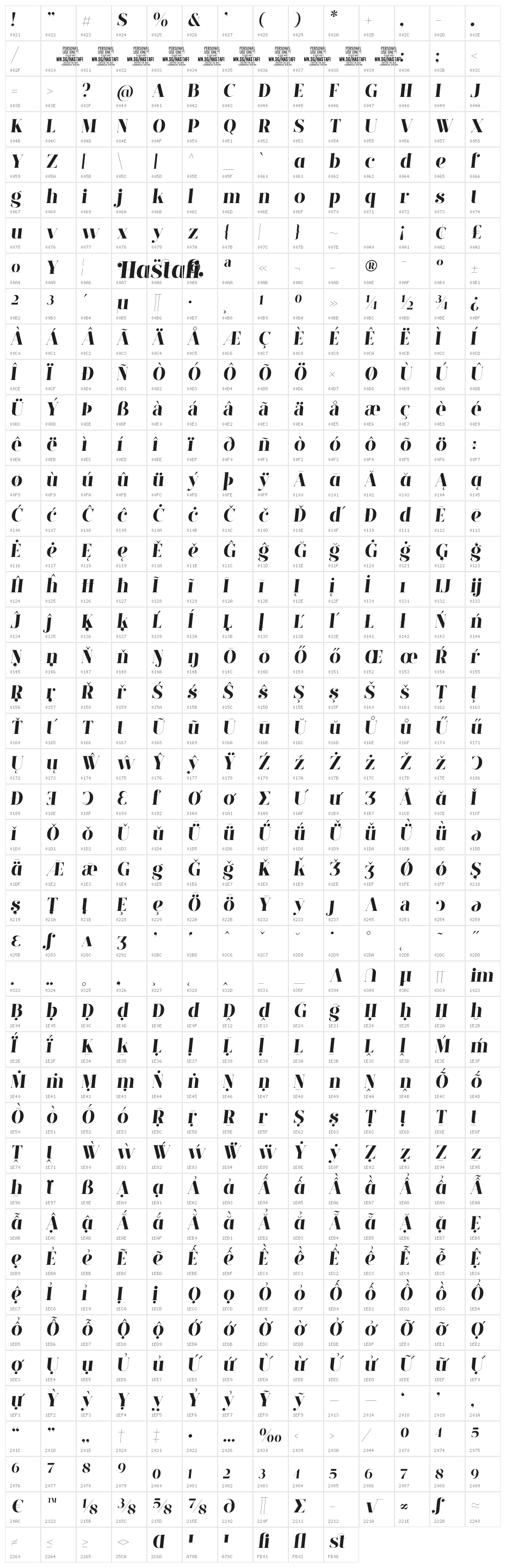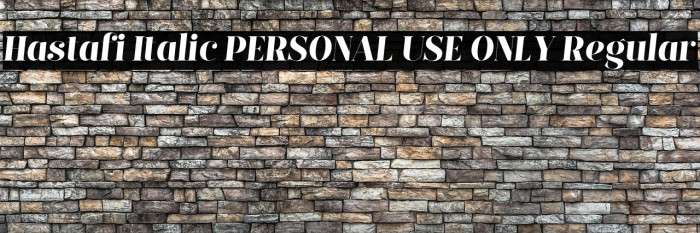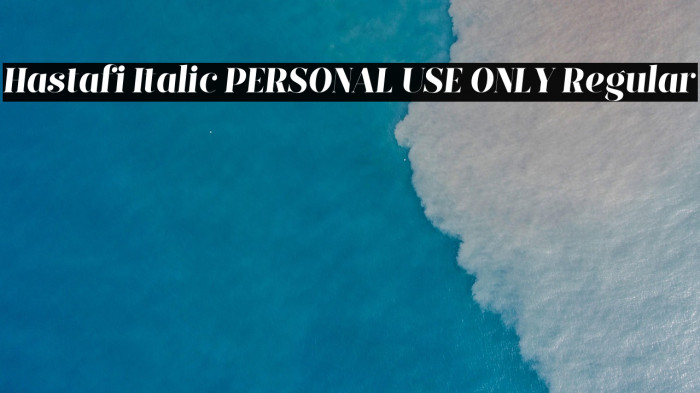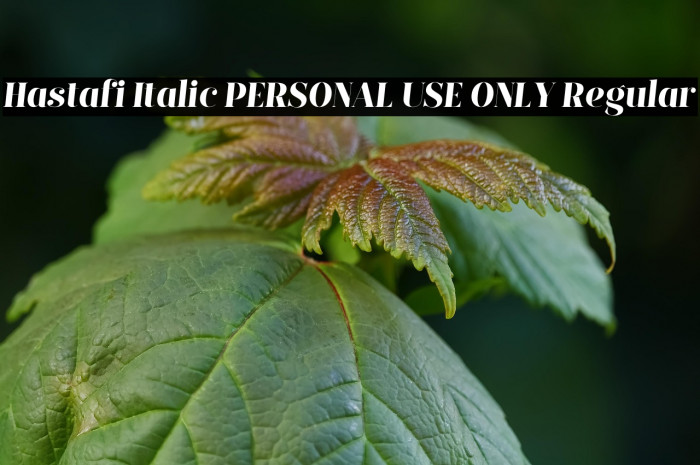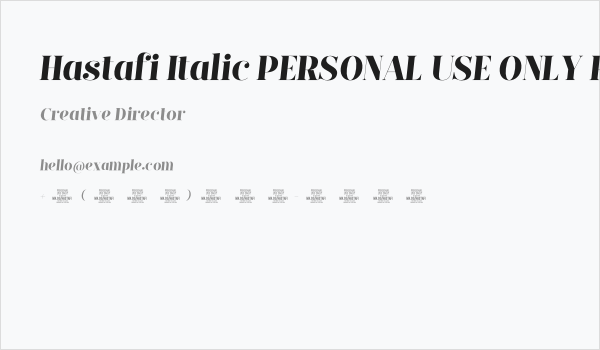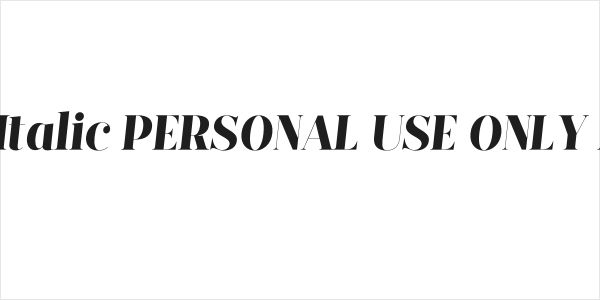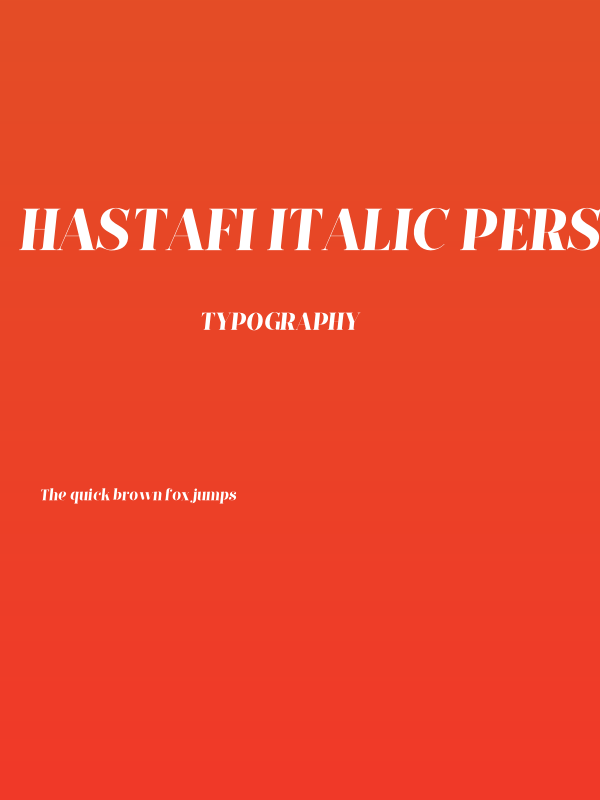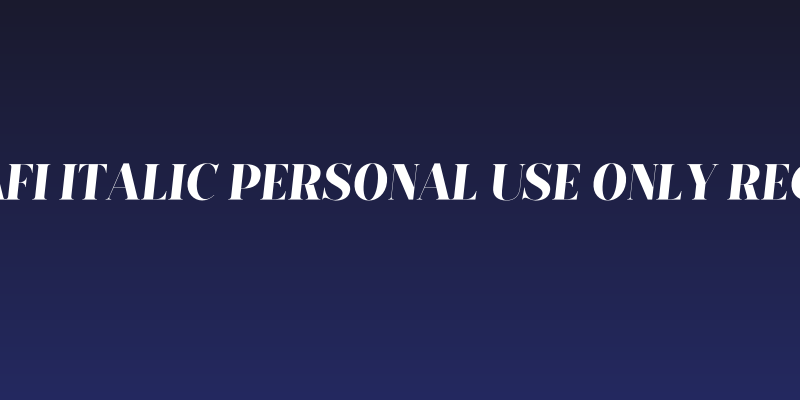
Hastafi Italic PERSONAL USE ONLY Regular Font
Hastafi Italic PERSONAL USE ONLY Regular Description
This font features a dynamic and elegant italic style, characterized by its slanted and flowing letterforms. The strokes are bold and pronounced, with a high contrast between thick and thin lines, giving it a sophisticated and stylish appearance. The uppercase letters are tall and commanding, while the lowercase letters maintain a consistent and harmonious flow. The special characters are designed with the same attention to detail, ensuring a cohesive look across all elements. This font's unique style makes it suitable for projects that require a touch of elegance and flair.